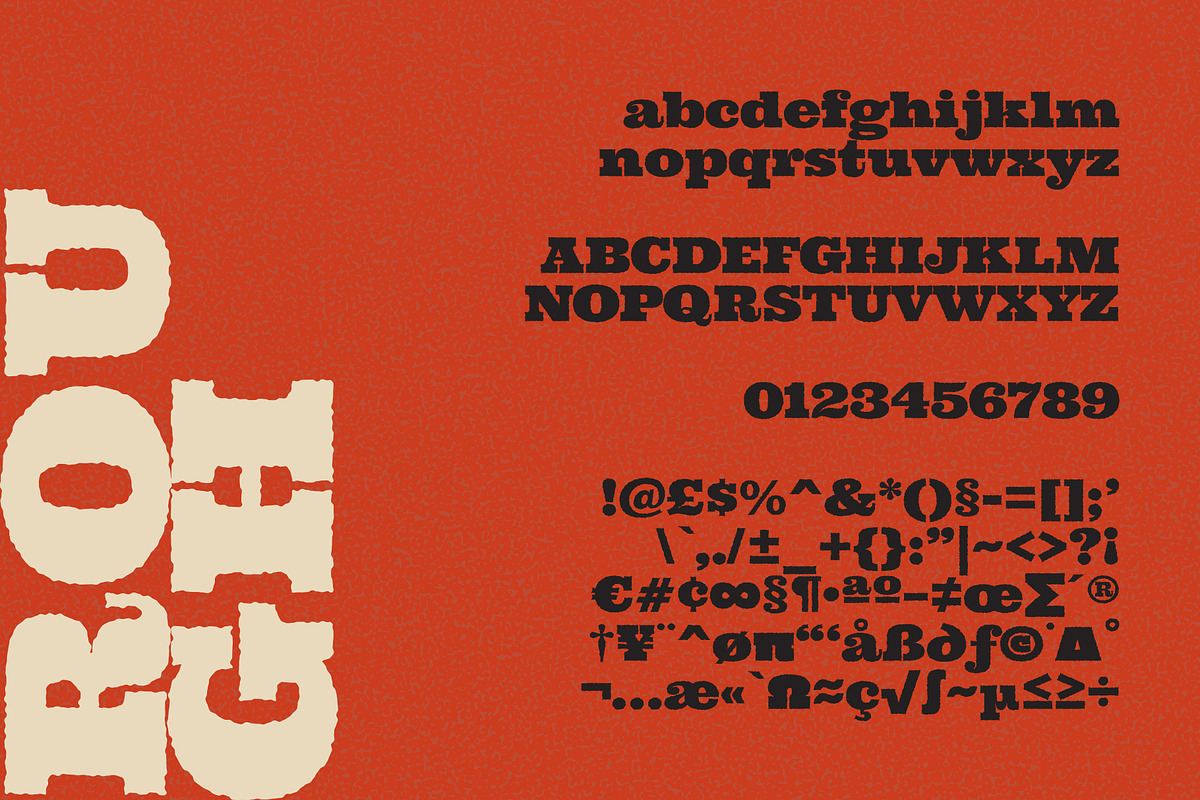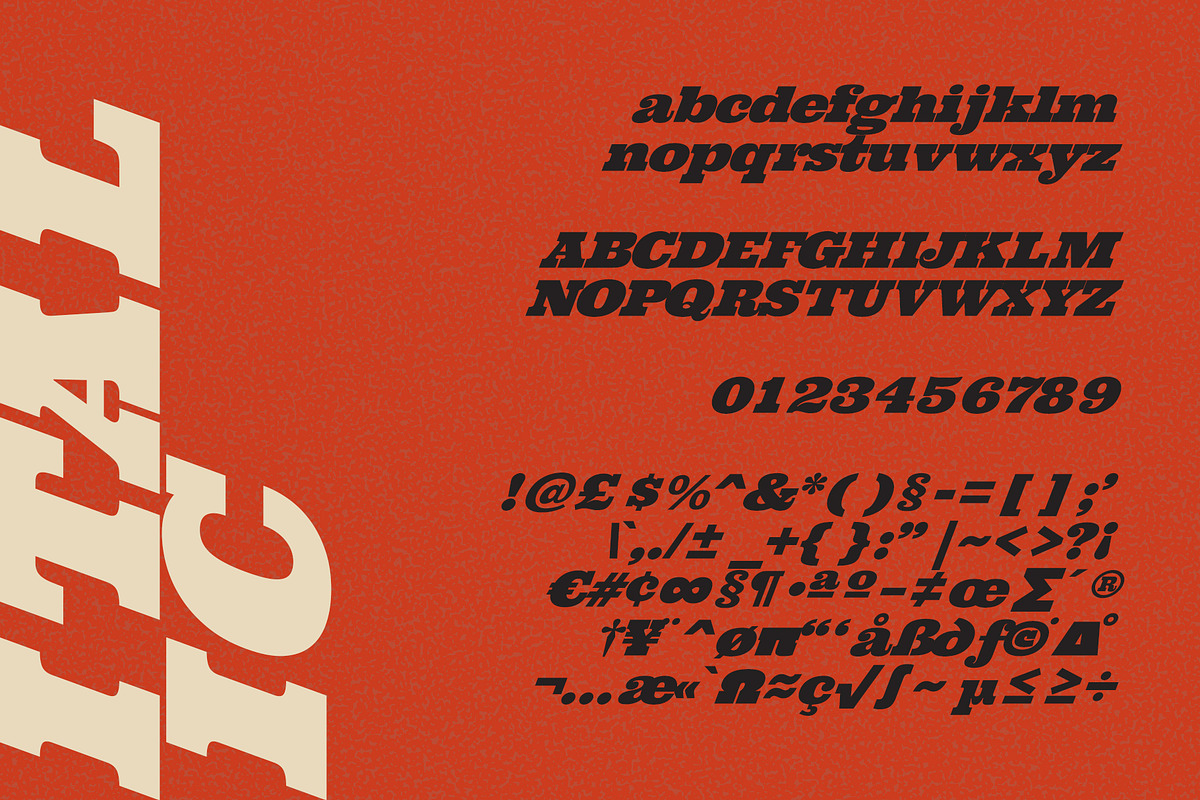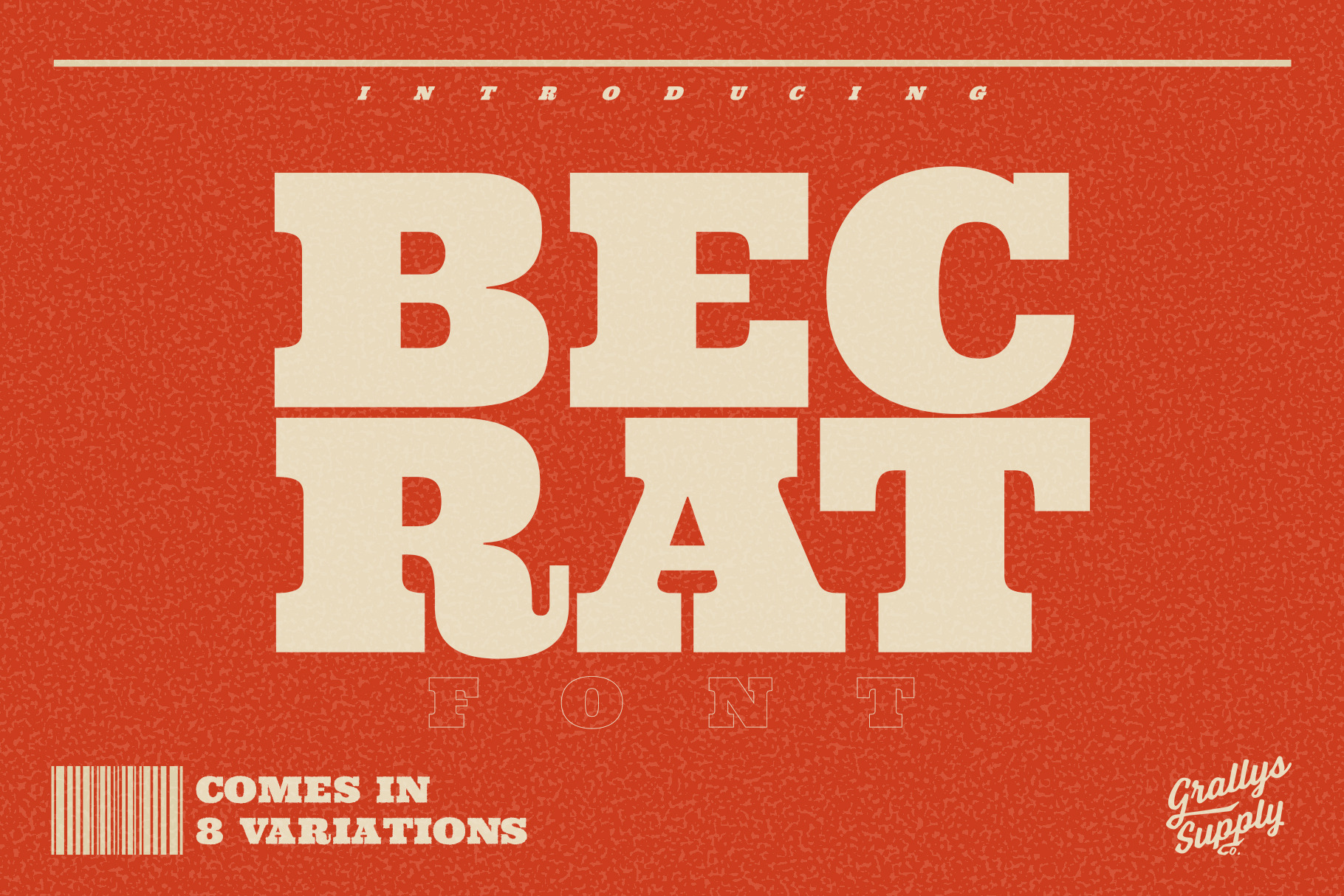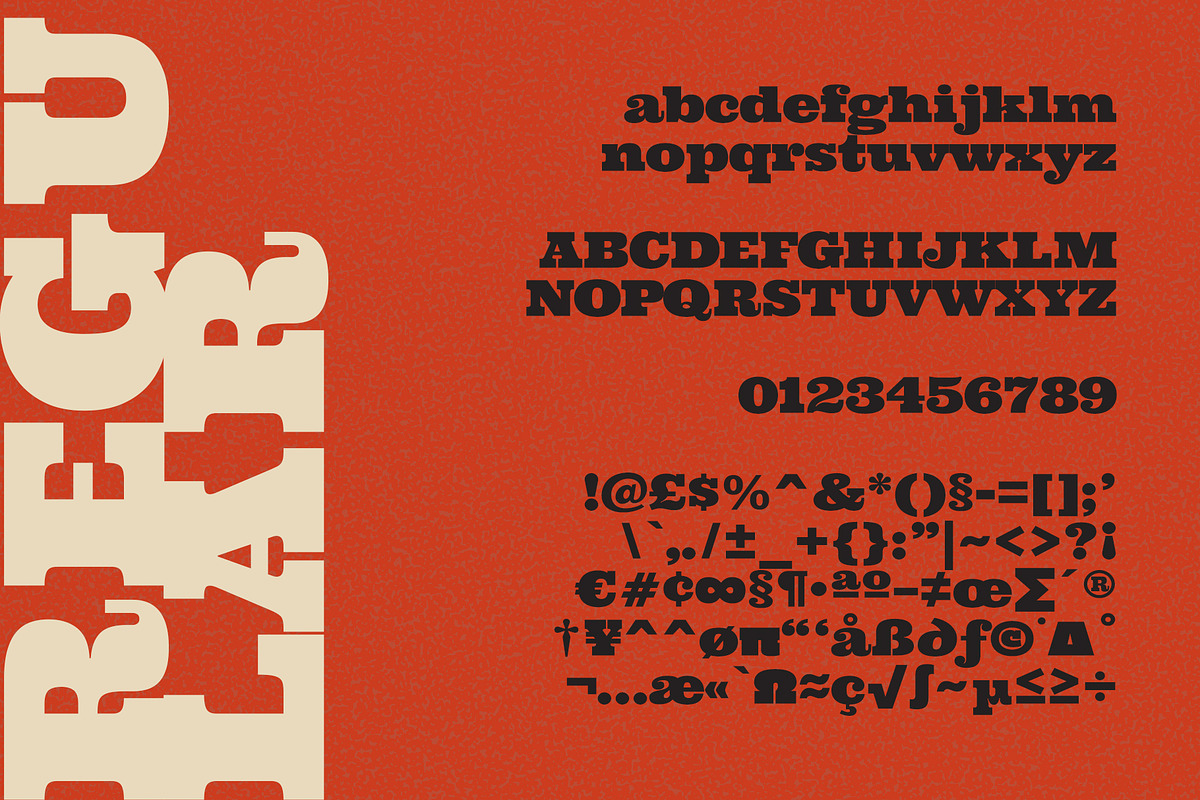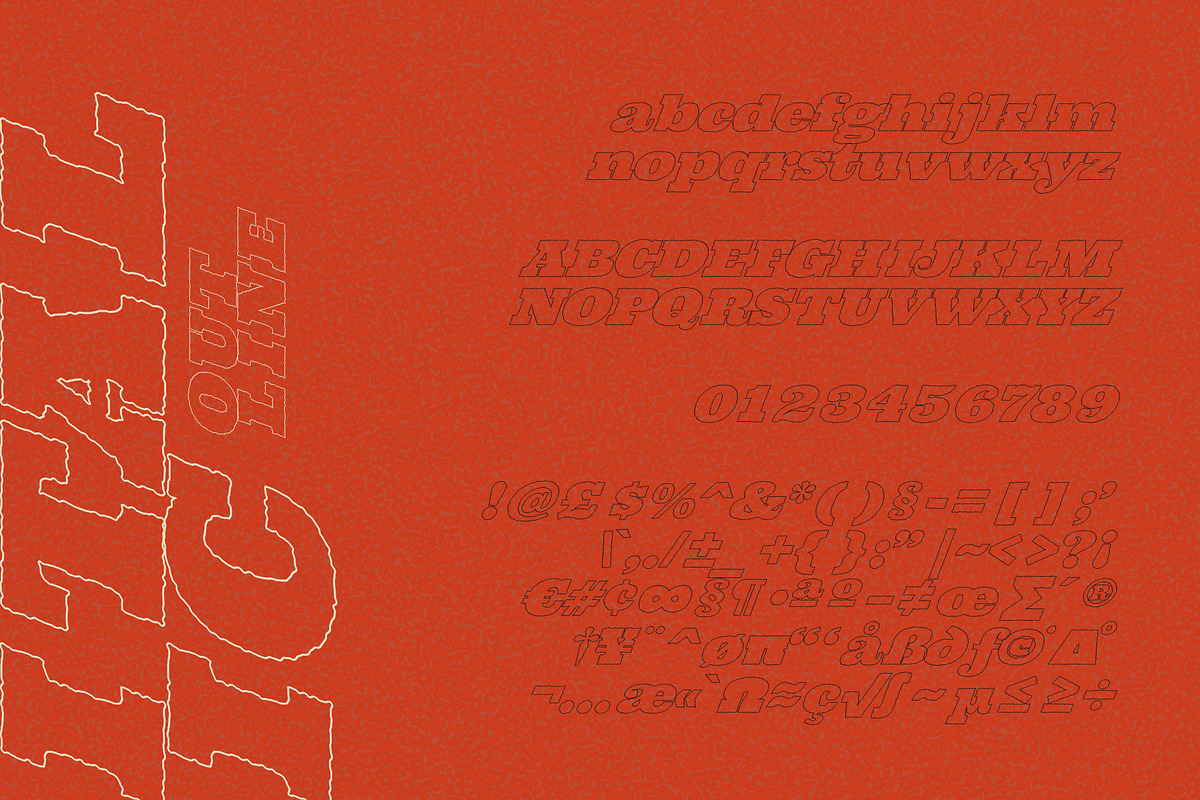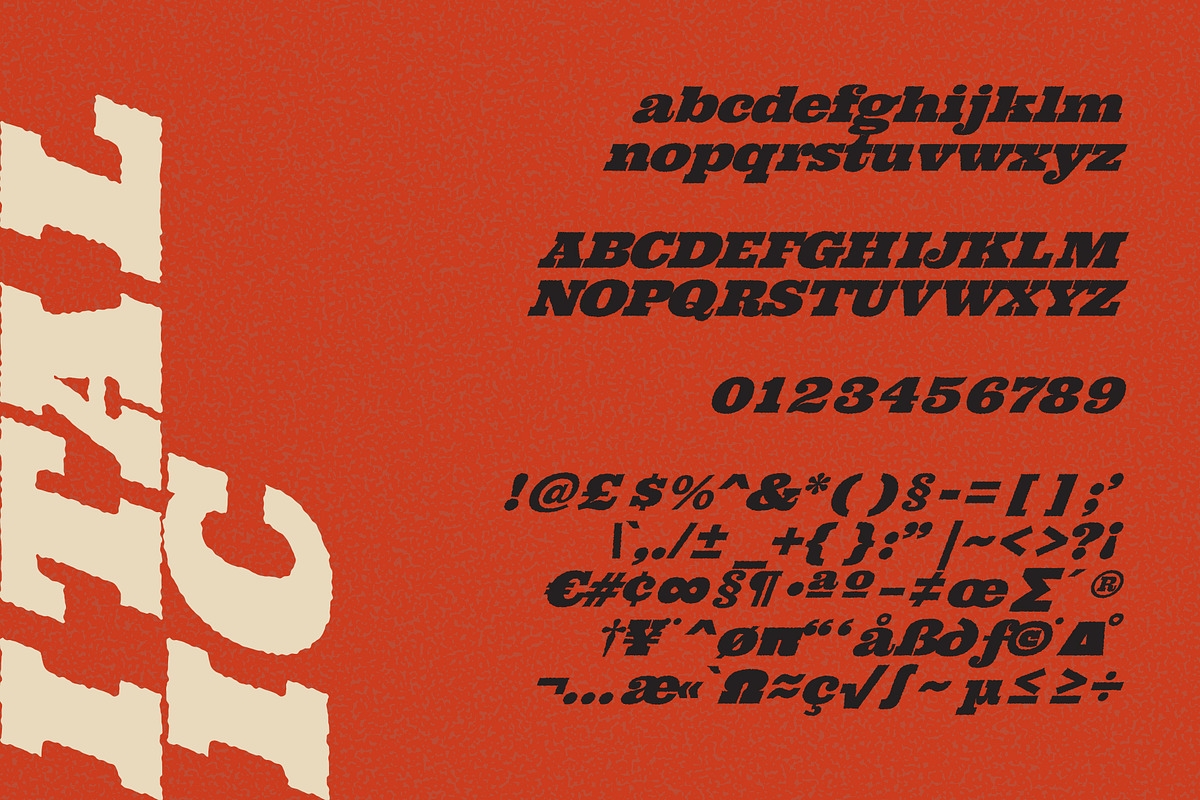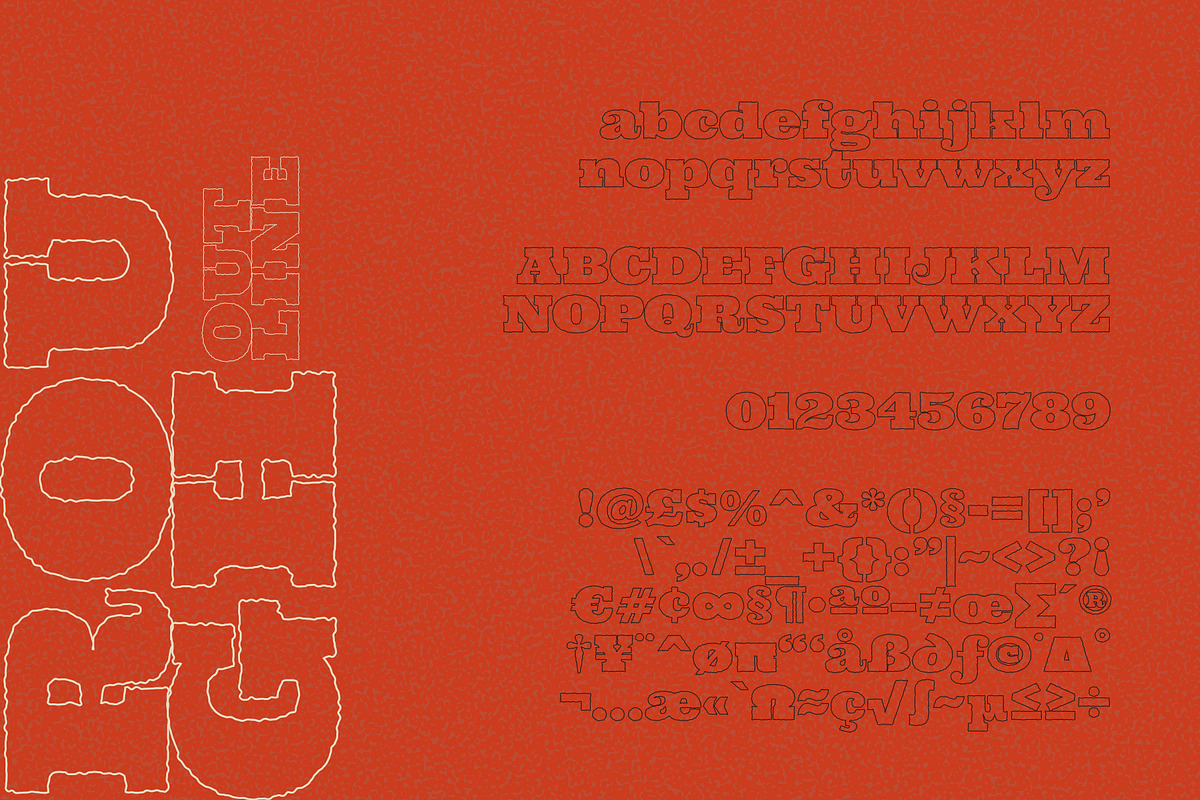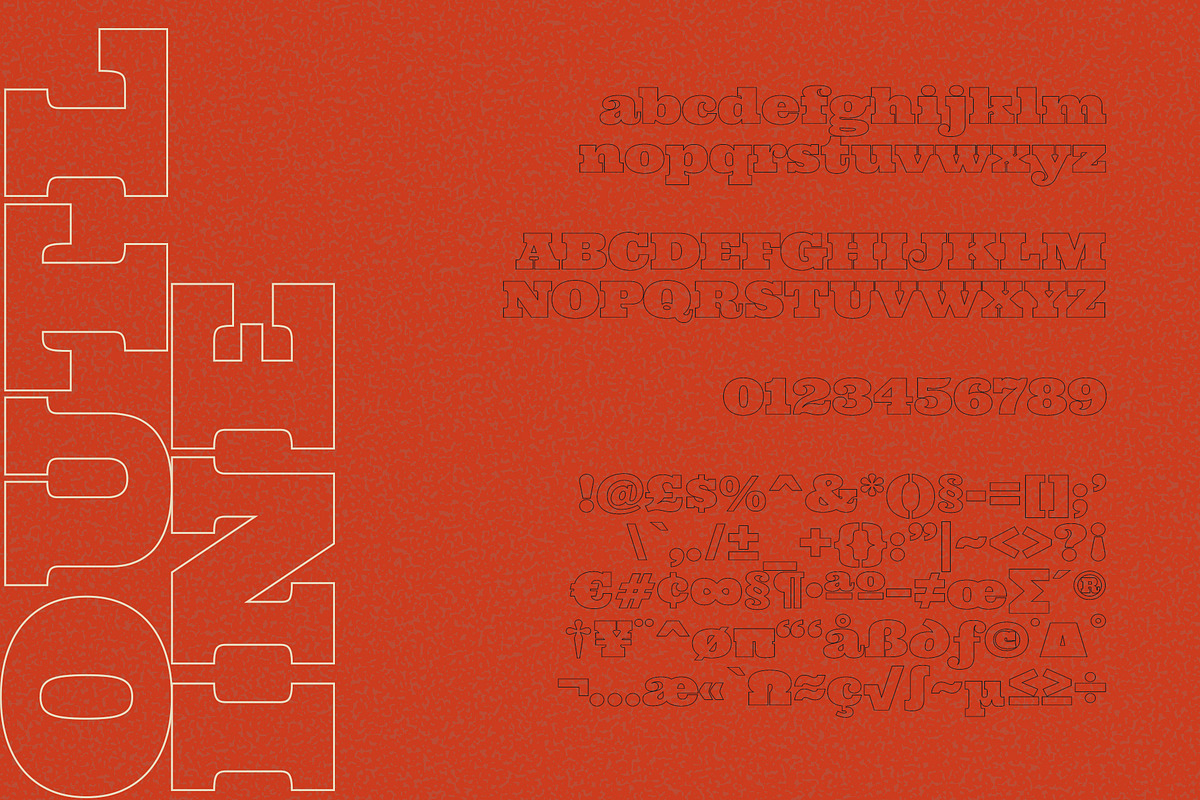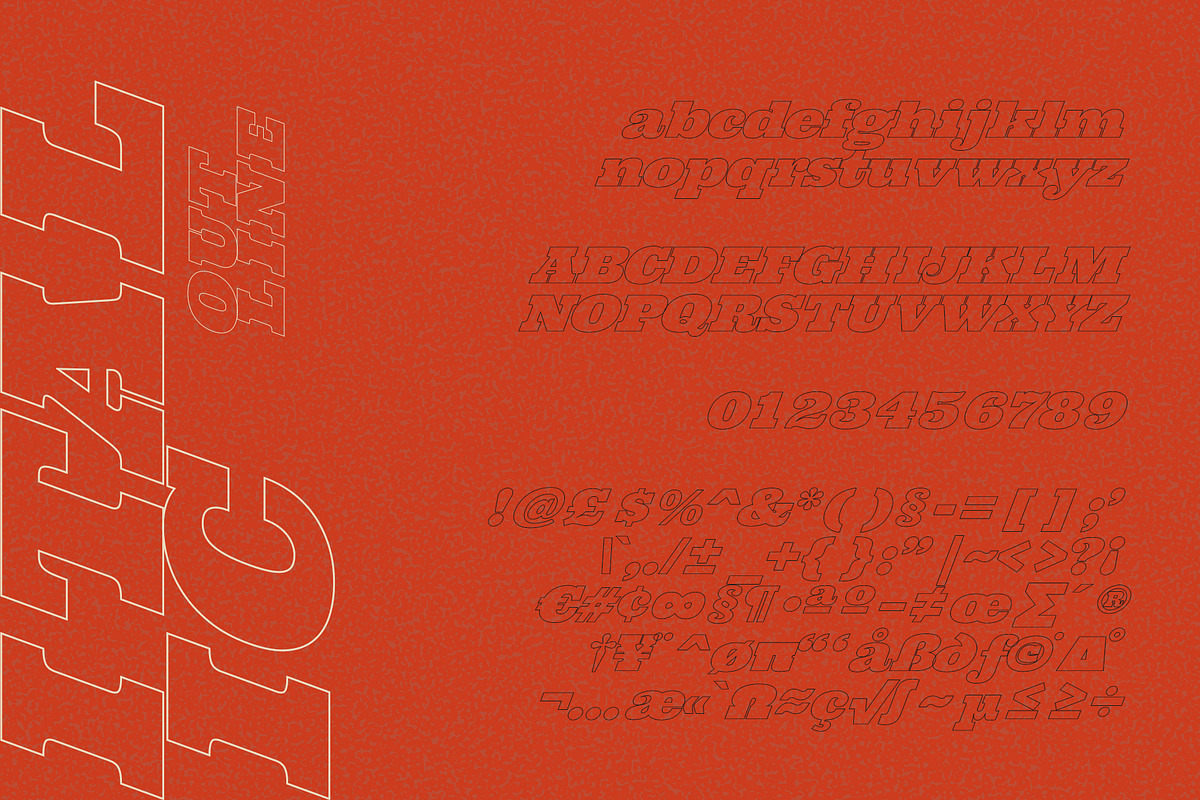
Becrat Font by Grallys Supply Company.
Becrat is a super bold slab typeface. This font is perfect for an iconic bold and dramatic statement due to its easy legible typestyle. Add an impact to your headlines with this powerful font family.
As with all our fonts, Becrat is hand drawn then digitised and tweaked, before being turned into a unique font.
Includes • Regular • Outline • Rough • Rough Outline • Italic • Italic Outline • Italic Rough • Italic Rough Outline